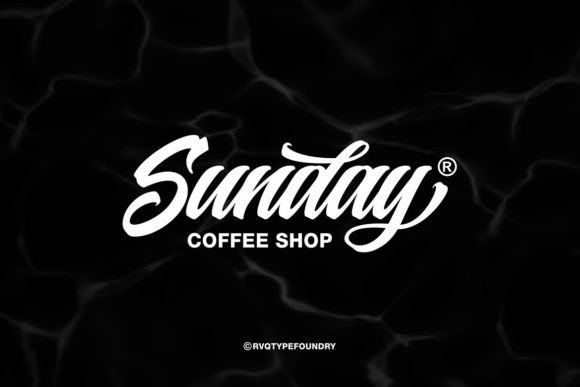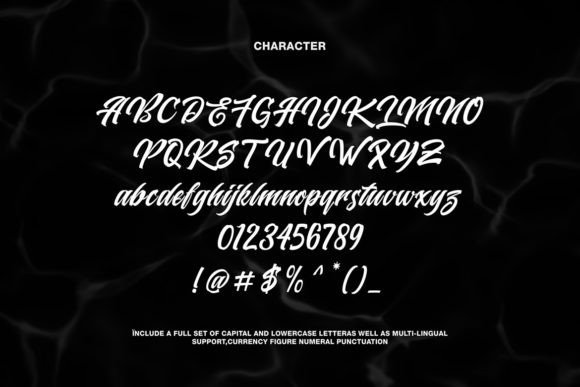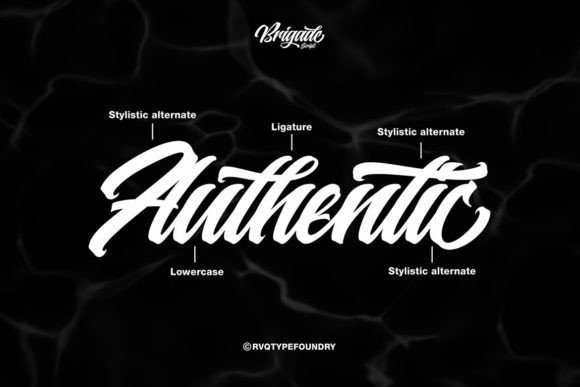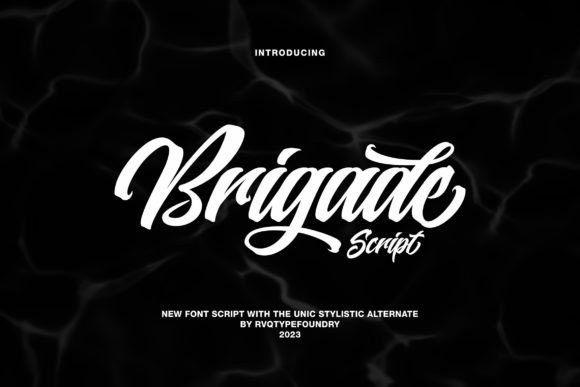
Introducing the Brigade Script Font: Elevate Your Designs with Elegance and Sophistication
In the world of typography, a font can make or break a design. For designers and crafters seeking to add a touch of class and vintage charm to their projects, the Brigade Script Font is an exceptional choice. This beautifully hand-lettered script font boasts an elegant character set that instantly elevates any design it’s applied to. In this article, we’ll delve into the features and benefits of the Brigade Script Font, exploring how it can become an indispensable part of your design toolkit.
The Essence of Brigade Script Font
The Brigade script is a new font script hand-lettering with a classy, elegant, and vintage feel character set. Its unique design combines the beauty of traditional handwriting with the sophistication required for modern designs. What makes Brigade truly stand out is its versatility. By simply mixing uppercase and lowercase letters and incorporating alternative glyphs, you can create stunning combinations that are both visually appealing and highly customizable.
Key Features of Brigade Script Font
The Brigade Script Font is not just another pretty face; it comes packed with features that make it incredibly useful for a wide range of design projects. Here are some of its key features:
- Full Set of Letters: The font includes a complete set of capital and lowercase letters, ensuring you have everything you need to create beautiful text.
- Multi-lingual Support: Cater to a global audience with support for multiple languages, making your designs accessible to a broader audience.
- Currency Figures and Numerals: Easily add financial or data-related content to your designs with comprehensive currency figures and numerals.
- Ligature: Enhance the flow and aesthetic of your text with ligatures, which combine letters for a more harmonious look.
- Punctuation and Extra Glyphs: Complete your designs with a range of punctuation marks and additional glyphs that offer more creative freedom.
Using Brigade Script Font in Your Designs
One of the best things about the Brigade Script Font is its ease of use. Whether you’re a seasoned designer or a crafting enthusiast, you can quickly incorporate this font into your projects. Here are some ideas to get you started:
- Wedding and Event Invitations: The elegant and vintage feel of Brigade makes it perfect for wedding invitations, event announcements, and other special occasion designs.
- Branding and Packaging: Add a touch of class to your brand’s identity and packaging with this sophisticated script font.
- Stationery and Paper Goods: Elevate your stationery, notebooks, and paper crafts with the beautiful, flowing lines of Brigade Script.
- Digital and Print Media: Whether it’s for a website, social media graphics, or print advertisements, Brigade Script Font can add a level of sophistication and charm to your content.
Tips for Maximizing the Potential of Brigade Script Font
To truly make the most of the Brigade Script Font, consider the following tips:
- Mix and Match: Don’t be afraid to experiment with different combinations of uppercase and lowercase letters, along with alternative glyphs, to create unique looks.
- Pair with Other Fonts: Brigade works beautifully with both serif and sans-serif fonts. Experiment with pairings to find the perfect balance for your design.
- Adjust Line Spacing and Kerning: Fine-tune your text for optimal readability and aesthetic appeal by adjusting line spacing and kerning.
| Font Name | Brigade Script Font |
| Author | Rvq Type Foundry |
The Brigade Script Font is a versatile and elegant addition to any designer’s or crafter’s toolkit. Its vintage charm, combined with modern features like multi-lingual support and ligatures, makes it perfect for a wide range of projects. By incorporating Brigade into your designs, you can add a level of sophistication and class that sets your work apart. So why wait? Explore the possibilities of the Brigade Script Font today and discover how it can elevate your designs to new heights.